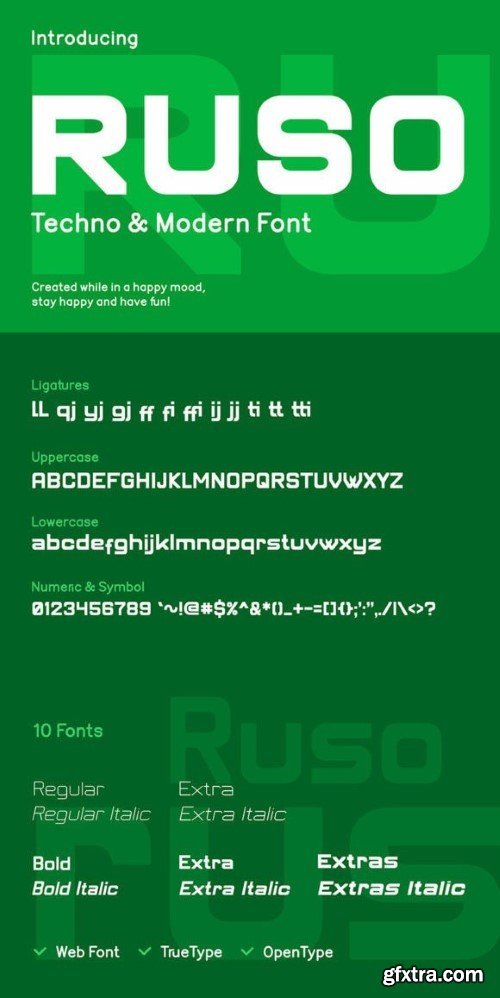
罗索 techno & 现代字体
Ruso is a display font that is perfect for modern designs. It’s simple, versatile, and easy to read, with clean, sharp lines and a contemporary look. Keep in mind that the font is PUA encoded, meaning that you can access all delightful glyphs and swashes effortlessly.